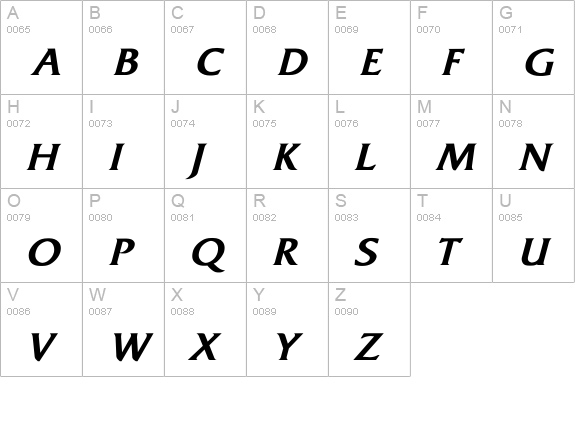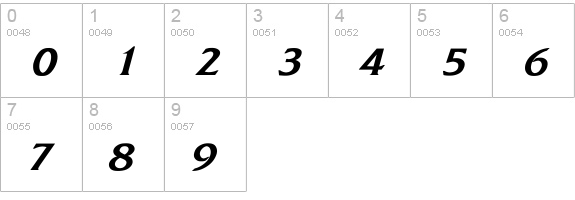
FritzQuadrata Bold Italic Font Details
FritzQuadrata Bold Italic is a strong, high-contrast, italic variant in the FritzQuadrata typeface family \xE2\x80\x94 well suited to headlines, attention-grabbing titles, and strong calls-to-action.
FritzQuadrata Bold Italic is a captivating and powerful font that exudes confidence and elegance. With its bold and slanted characters, this font commands attention and adds a touch of sophistication to any design. Whether used in headlines, logos, or branding materials, FritzQuadrata Bold Italic makes a bold statement that is hard to ignore. This versatile font combines the strength of a bold typeface with the graceful slant of italics, creating a harmonious balance that is both visually striking and aesthetically pleasing. The thick strokes and sharp angles of each letter give it a strong and authoritative presence, while the italicized slant adds a touch of flair and uniqueness. FritzQuadrata Bold Italic is ideal for projects that require a strong and impactful look, such as advertising campaigns, magazine spreads, and editorial designs. Its versatility allows it to seamlessly adapt to various design styles, making it a valuable asset for both print and digital media. But what makes FritzQuadrata Bold Italic even more appealing is the fact that it is freely available to download at FontsMarket.com. This means that designers and creatives can easily access and use this exceptional font in their projects without any cost. It's a rare opportunity to add a high-quality, professionally crafted font to your collection without breaking the bank. So whether you're a seasoned designer or just starting out, FritzQuadrata Bold Italic is a font that will not only enhance your designs but also save you money. Its boldness, elegance, and the fact that it is freely available make it a must-have font for anyone looking to make a lasting impression. Don't miss out on the chance to elevate your designs with this remarkable font – head over to FontsMarket.com and download FritzQuadrata Bold Italic now.